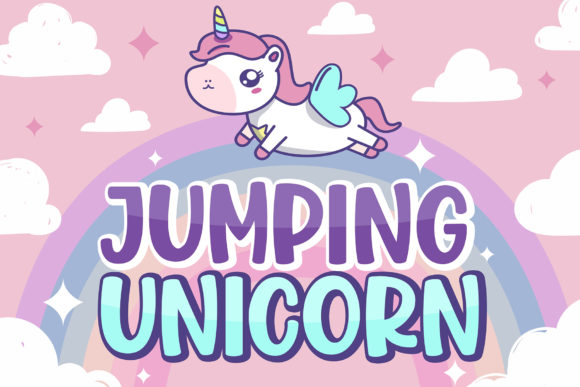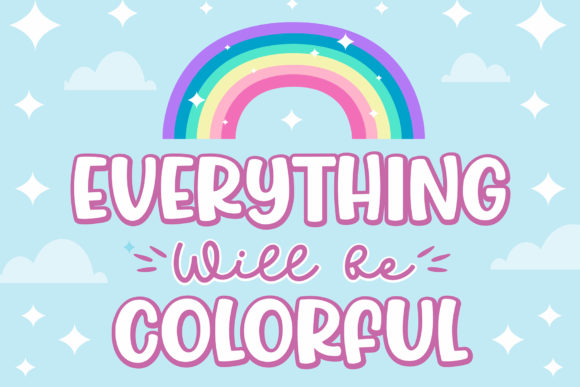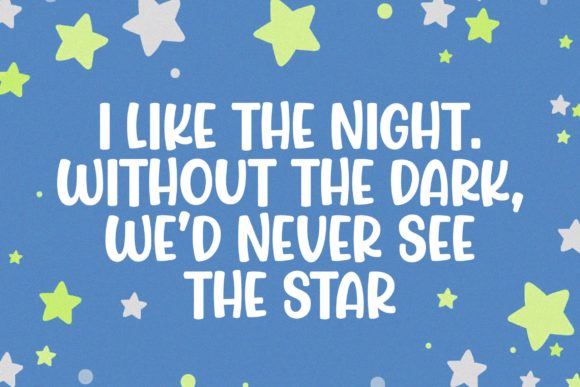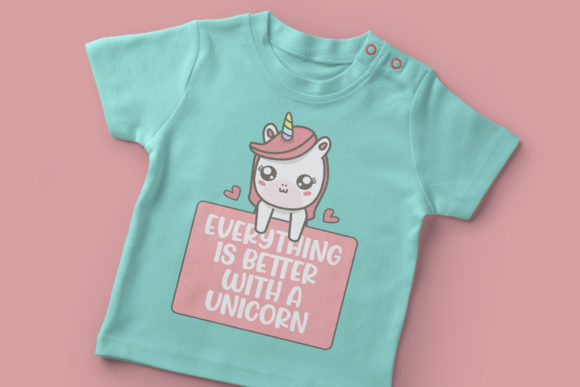
Jumping Unicorn Font
Jumping Unicorn is a sweet and friendly display font. Its natural and cute style makes it incredibly fitting to a large pool of designs.The only limit is your imagination!